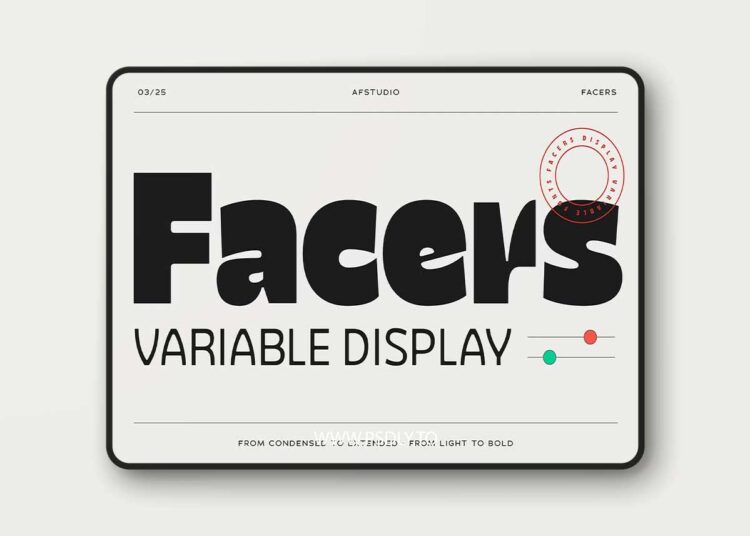
Facers™ — Bold. Playful. Unstoppable.
Introducing Facers™, a powerful variable display typeface designed to stand out, shout loud, and leave a lasting impression.
With 25 styles spanning 5 widths and 5 weights, Facers™ is your all-in-one tool for crafting dynamic, expressive, and ultra-modern design. Whether you’re working on editorial spreads, posters, packaging, branding, or digital content — Facers™ flexes to fit your boldest ideas.
Use Facers™ For:
• Bold editorial layouts
• Social media & promo graphics
• Eye-catching product packaging
• Music/event posters
• Trendy branding systems
• Motion graphics & animation